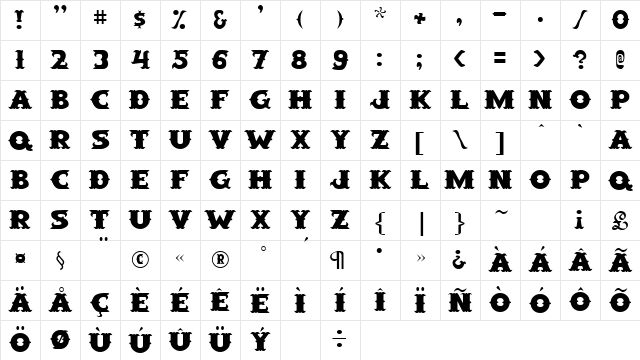
SaloonExt Regular Free Font
SaloonExt Regular
Design Context for SaloonExt
SaloonExt echoes the hand-painted signage and woodblock typography of the American frontier, with a warm, rugged personality.
Font Pairing: Combine SaloonExt with a simple slab or neutral sans - period-accurate companions reinforce the vintage feel without competing for attention.
Pro Tip: Use SaloonExt for short, impactful bursts of text - it shines in poster headlines and product names rather than extended copy.